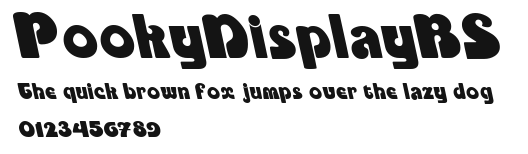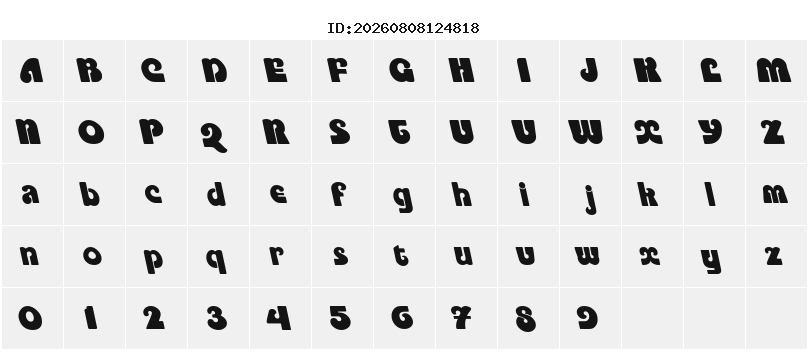
PookyDisplayBS Preview
• Font Name: PookyDisplayBS
About PookyDisplayBS.ttf
PookyDisplayBS.ttf is a modern, elegant sans-serif font designed for ultimate readability and visual harmony. Perfect for branding, headlines, web design, and print materials.